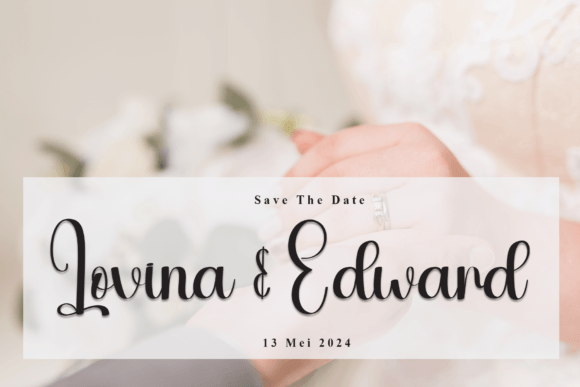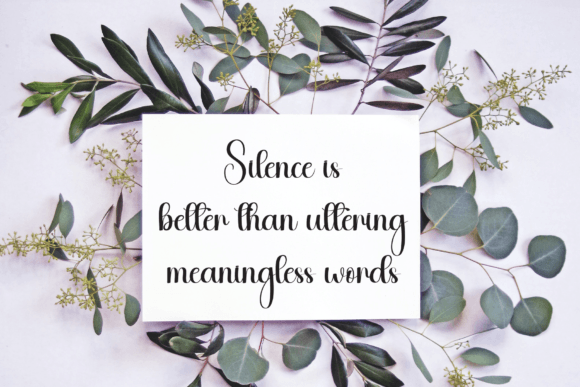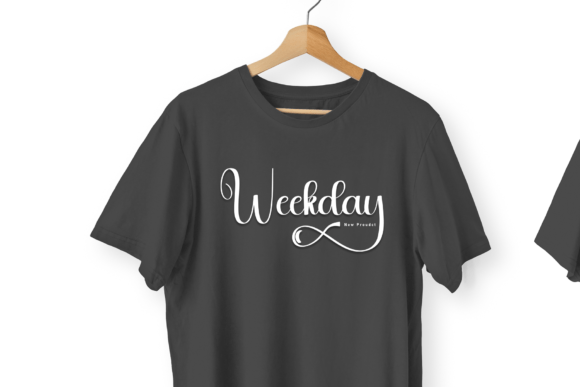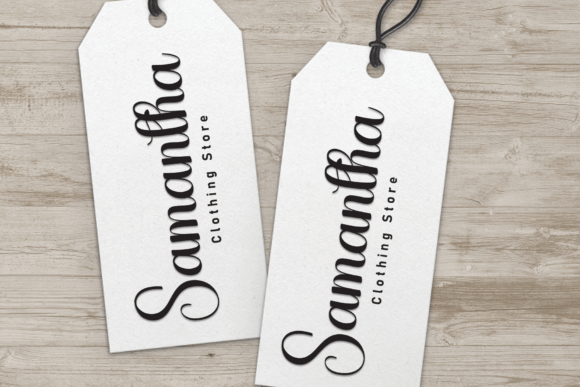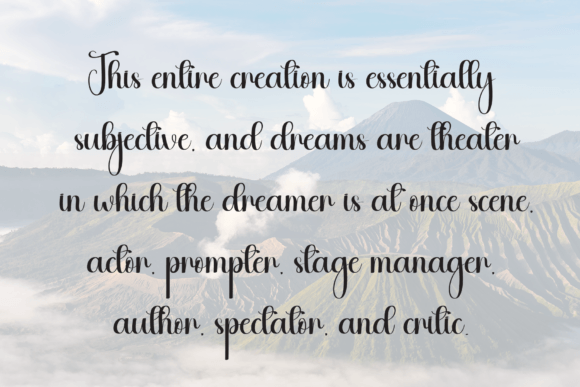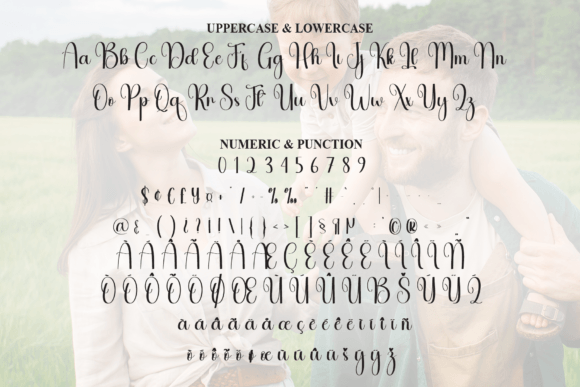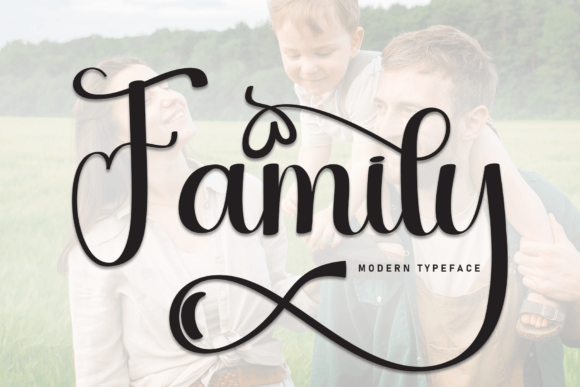
Introducing Family Font: The Ultimate Playful Handwritten Font for Creative Projects
Are you tired of using the same old fonts for your creative projects? Do you want to add a touch of whimsy and personality to your designs? Look no further than Family Font, a charmingly playful handwritten font that’s guaranteed to bring a smile to your face. With its delightful and affable character, this font is perfect for crafting romantic wedding invitations, heartwarming cards, or any design that could benefit from a sprinkle of fun.
As a designer or crafter, you know how important it is to choose the right font for your project. You want something that’s going to capture the tone and personality of your design, and help you connect with your audience. Family Font is the perfect choice for anyone looking to add a touch of playfulness and charm to their designs. Its adorable and spirited nature effortlessly adds an alluring charisma to your designs, elevating them to new heights of creativity.
What Makes Family Font So Special?
So, what sets Family Font apart from other fonts on the market? Here are just a few things that make it so special:
- Playful and Whimsical: Family Font is a handwritten font that’s full of personality and charm. Its playful and whimsical nature makes it perfect for designs that need a touch of fun and humor.
- Romantic and Affable: With its delightful and affable character, Family Font is perfect for crafting romantic wedding invitations, love letters, and other designs that require a touch of warmth and affection.
- Versatile: Family Font is a versatile font that can be used for a wide range of creative projects, from invitations and cards to posters and social media graphics.
- Easily Readable: Despite its playful nature, Family Font is still easily readable, making it perfect for designs that require a clear and concise message.
How to Use Family Font in Your Designs
Using Family Font in your designs is easy. Here are a few tips to get you started:
- Pair it with Other Fonts: Family Font pairs perfectly with other fonts, such as serif or sans-serif fonts. Try pairing it with a bold font for a striking contrast.
- Use it for Headings and Titles: Family Font is perfect for headings and titles, where its playful and whimsical nature can really shine.
- Add it to Your Digital Designs: Family Font can be used in a wide range of digital designs, from social media graphics to blog posts and website headers.
- Experiment with Different Colors: Family Font looks great in a wide range of colors, from bright and bold to soft and pastel.
Why Designers and Crafters Love Family Font
Family Font has quickly become a favorite among designers and crafters, and it’s easy to see why. Here are just a few reasons why:
- Unique and Eye-Catching: Family Font is a unique and eye-catching font that’s sure to grab attention.
- High-Quality: Family Font is a high-quality font that’s been carefully crafted to ensure that it looks great in any design.
If you’re looking for a font that’s going to add a touch of whimsy and personality to your designs, look no further than Family Font. With its delightful and affable character, this font is perfect for crafting romantic wedding invitations, heartwarming cards, or any design that could benefit from a sprinkle of fun. So why wait? Experience the enchanting allure of Family Font today and take your designs to new heights of creativity!